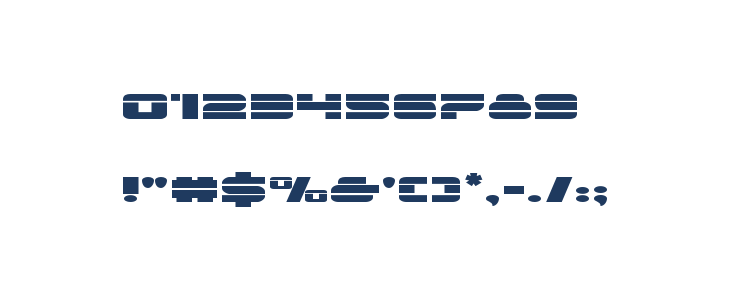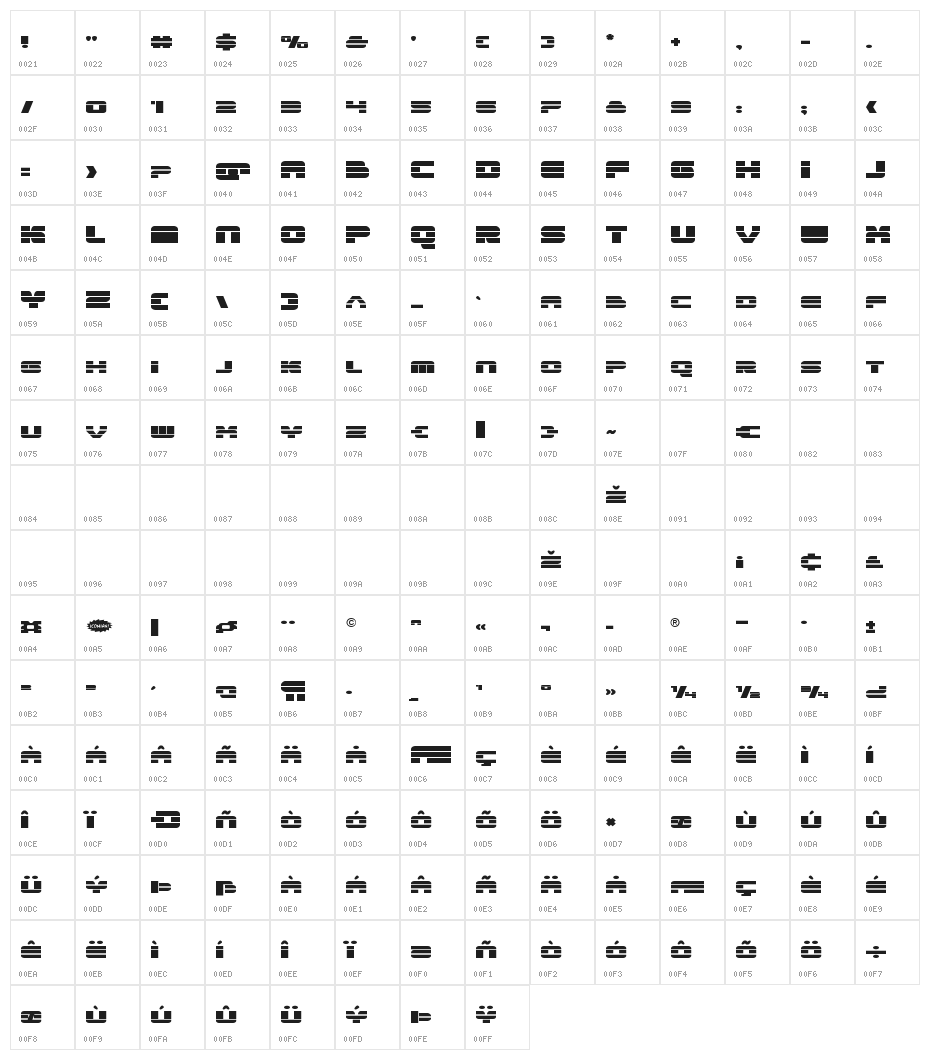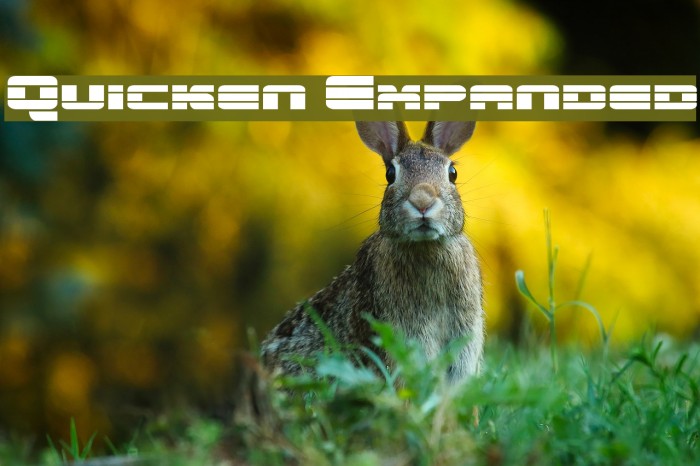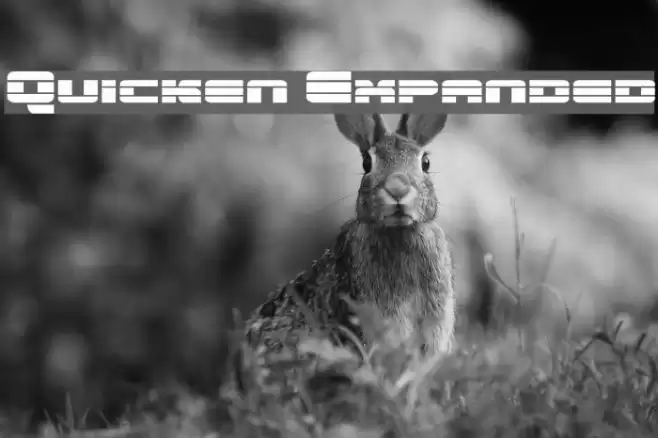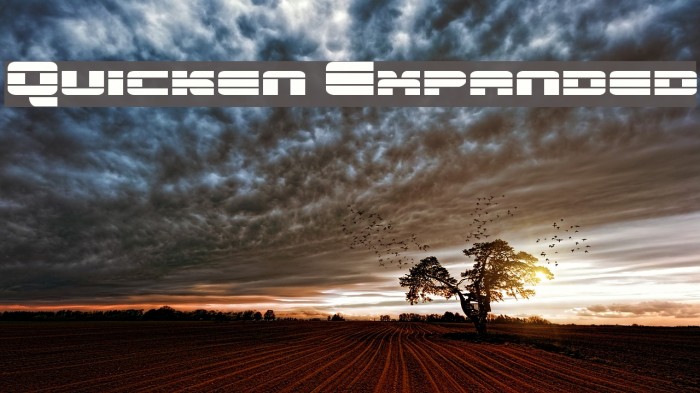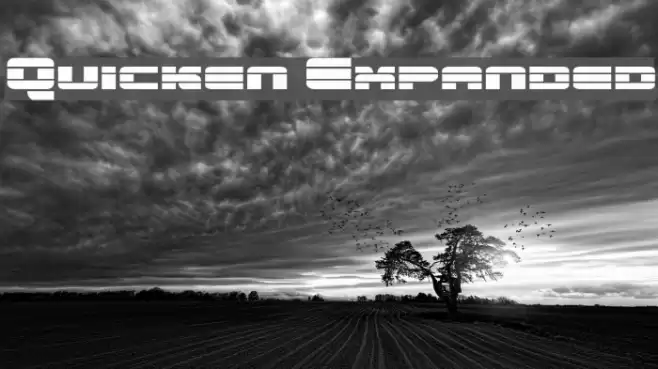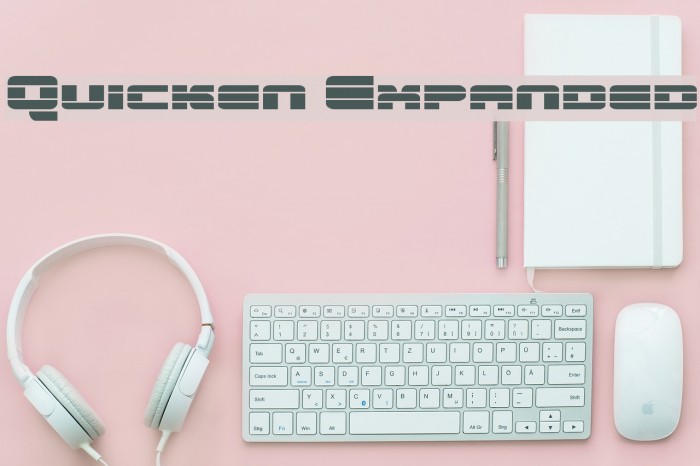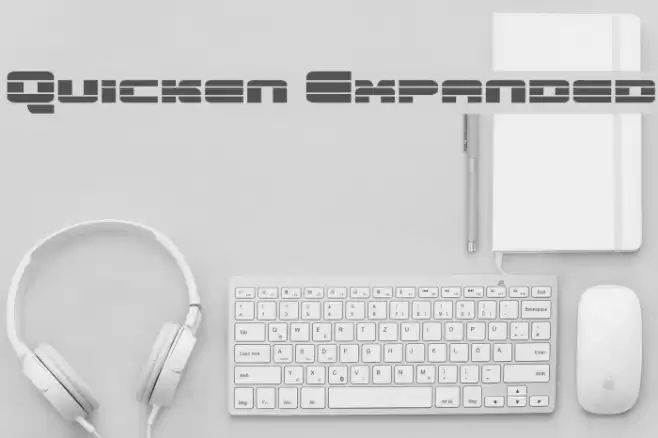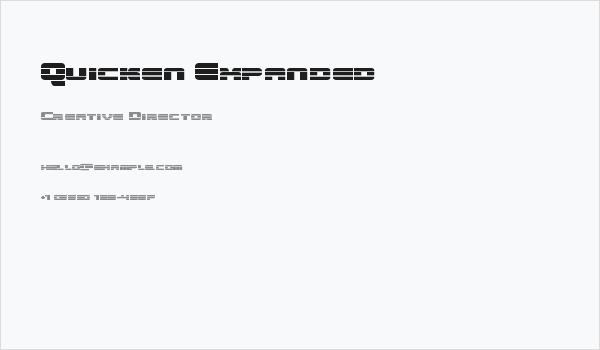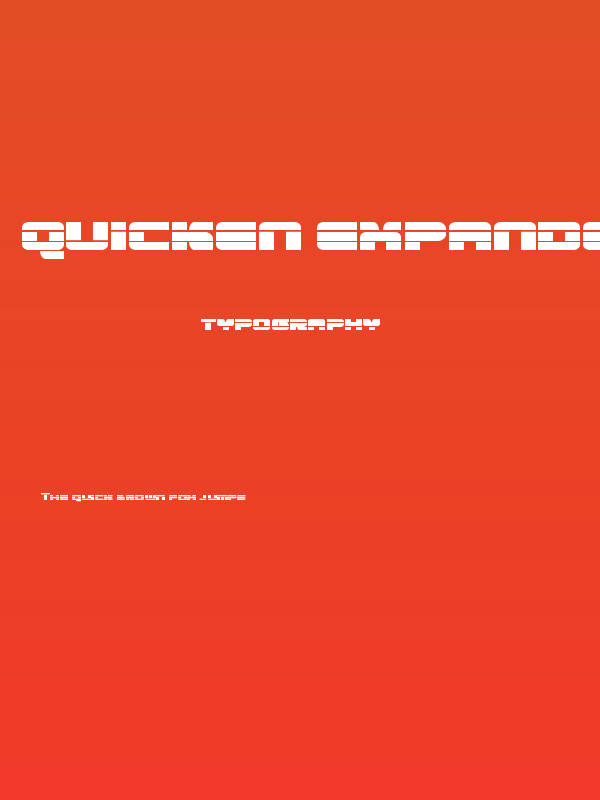
Quicken Expanded Font
Quicken Expanded Description
This font features a bold, futuristic design with a distinctly geometric style. The characters are constructed with thick, block-like segments that create a sense of strength and stability. The use of horizontal lines and rounded edges gives it a modern, industrial feel. The uppercase and lowercase letters maintain a consistent height, adding to the uniformity of the design. The numerals and special characters follow the same aesthetic, ensuring a cohesive look across all elements. This font is highly legible and makes a strong visual impact, ideal for projects that require a bold statement.
Proposed ProjectsIdeal for branding, posters, headlines, and any design that requires a strong, modern aesthetic.